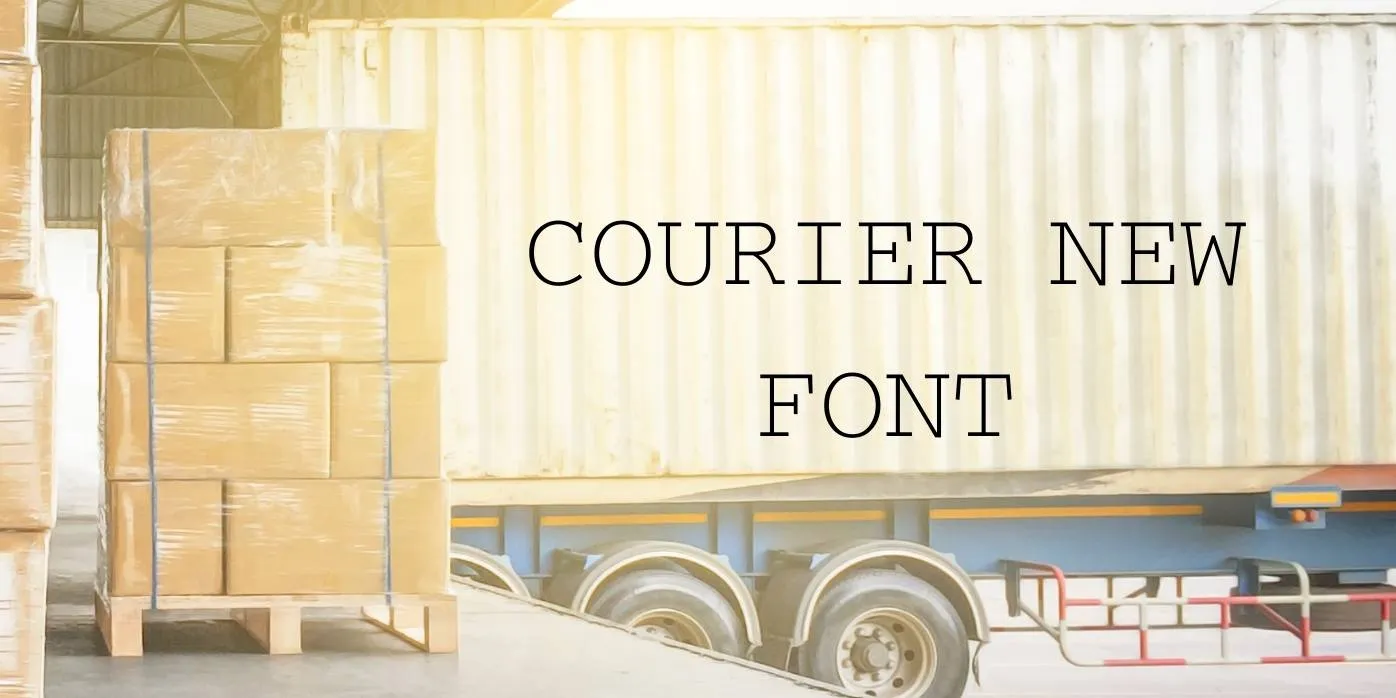
Courier New Font
Courier New Font is the beautiful slab serif typeface that the designer of this typeface is Howard Bud Kettler. It has OTF and TTF features and is free for personal use. Its characters have a beautiful regular style with a high standard quality look. It has Uppercase and lower case letters, Numbers and Numerals, and special symbols also.
It has the ability to support many international languages and accents for international designers. The font has Opentype Layout, Truetype outlines, and Digitally signed as well. This font style is worthy to create different designs in CSS (Cascading Style Sheet) and many other useful applications. The typeface is also available as an online text generator.